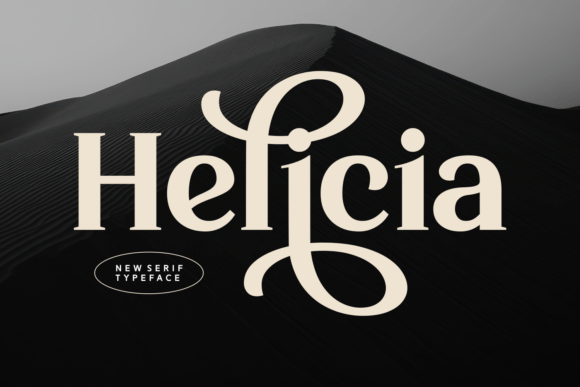
Introduction to Helicia Font
Helicia is a bold modern serif typeface that combines classic elegance with striking decorative swashes.
Its refined curves, strong structure, and stylish ligatures make it perfect for luxury branding, editorial headlines, fashion design, and sophisticated packaging Helicia stands out with its unique personality, offering both elegance and creativity in one versatile font.
Key Features of Helicia Font